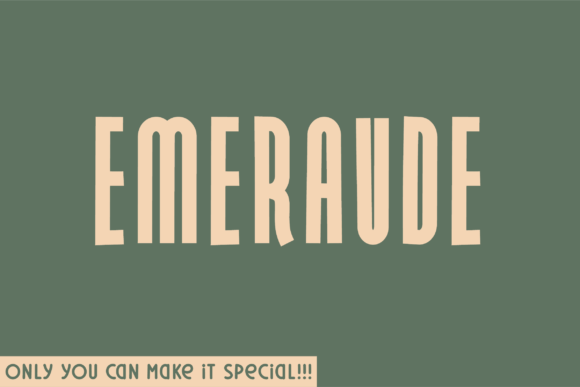
Introduction to Emeraude Font
Immerse yourself in the elegant simplicity of Emeraude – a sans serif display font that seamlessly blends style and functionality.
Expertly crafted, Emeraude offers hard-edged uppercase letters and numbers that resonate with authority Yet, don’t be deceived by its firm structure – every character is designed with a whisper of natural handwriting, adding an unexpected charm to an otherwise conventional typeface.